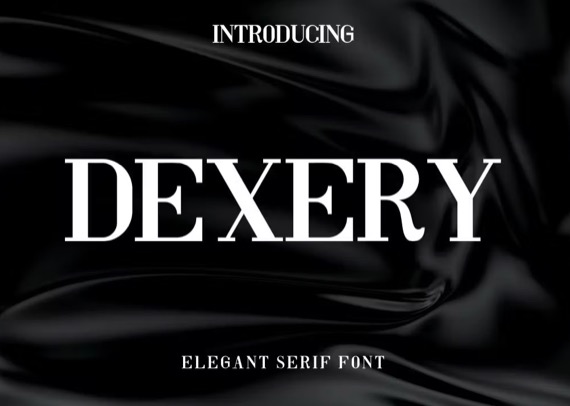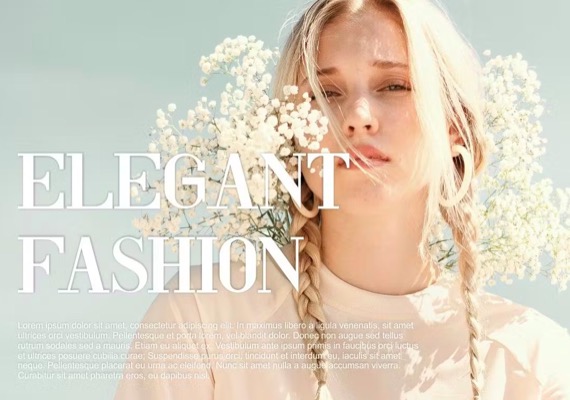
Dexery is a modern and authentic font. It’s perfect for the professional and branding needs of a product. This font is suitable for any branding project such as quotes, logo, blog header, poster, banner, letter, invitation, stationery, etc… Designed as a versatile and flexible tool that can be used on a range of projects and media.
Dexery Serif Font